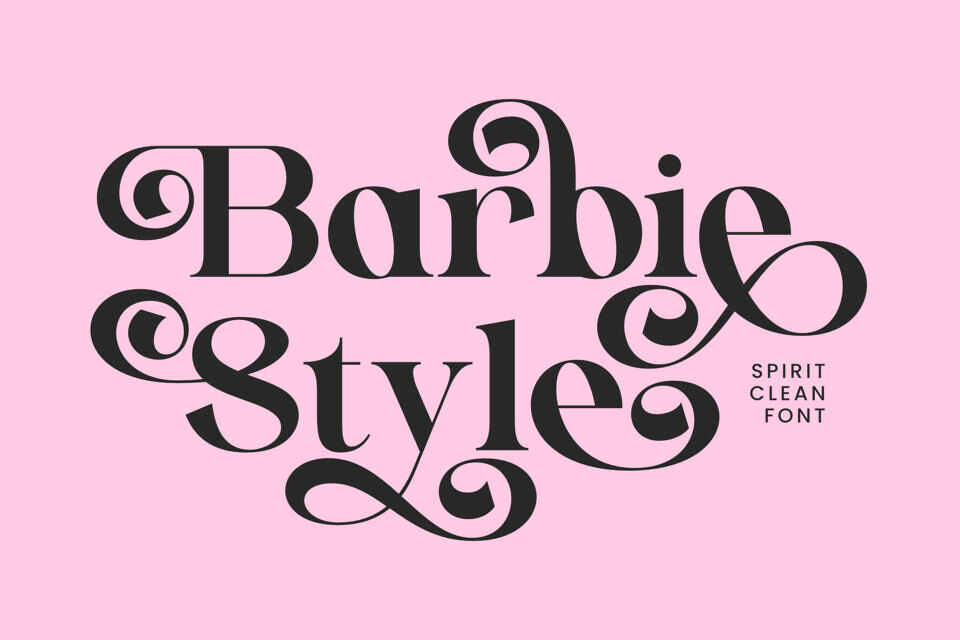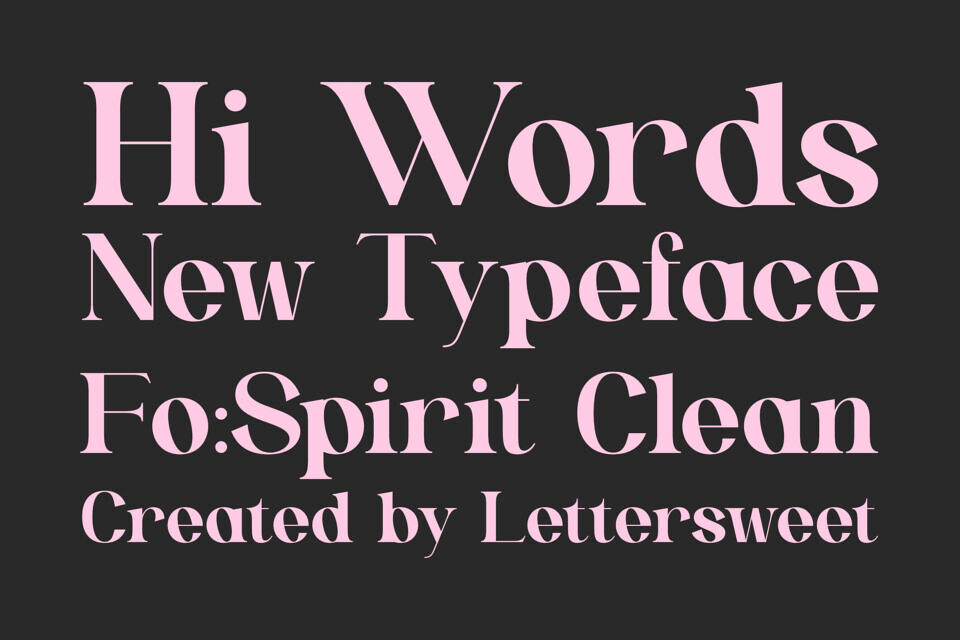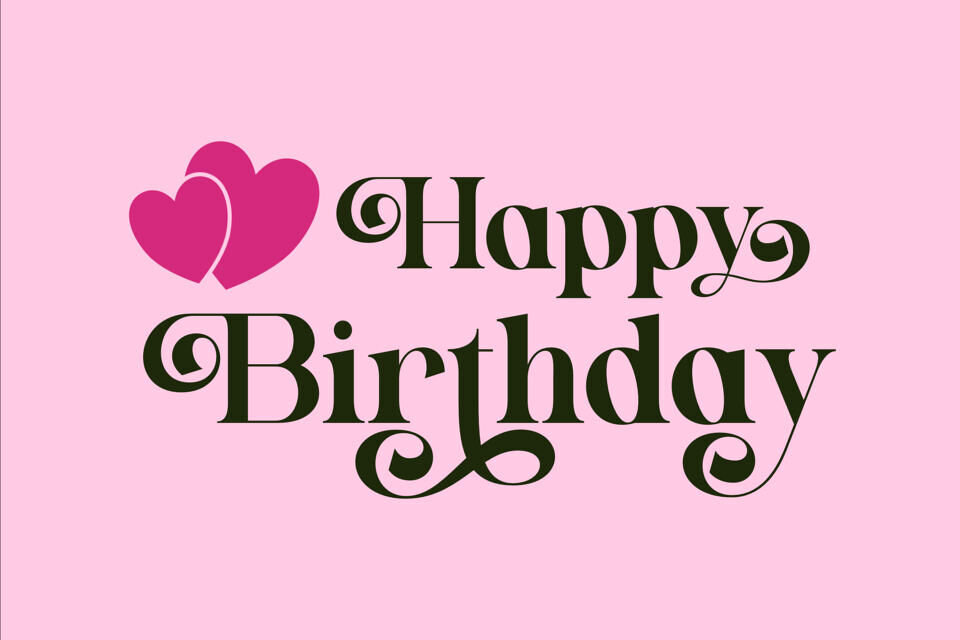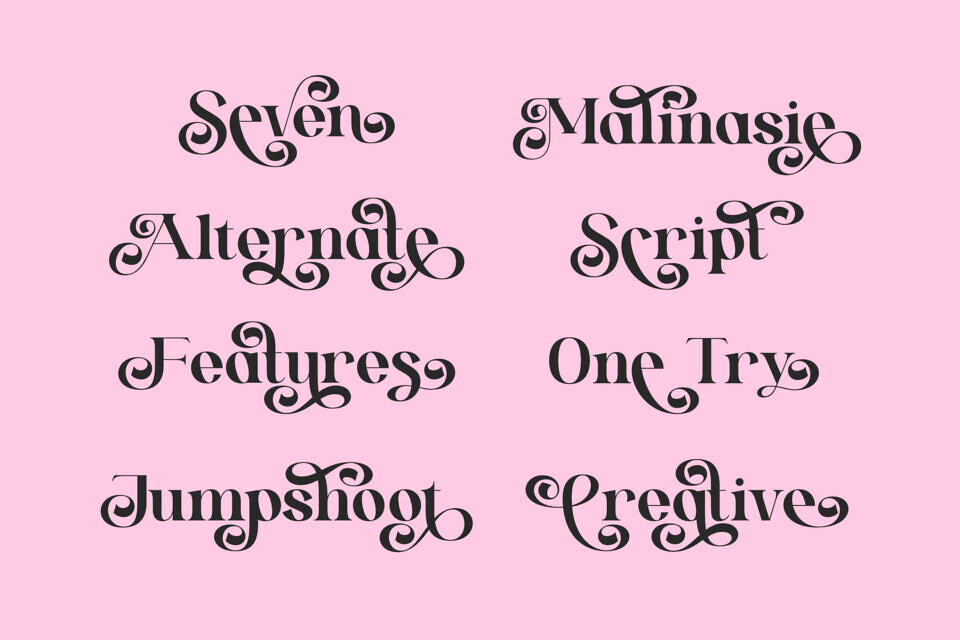
Spirit Clean Font
Meet Spirit Clean, a curly modern serif font that brings bold elegance and playful charm into perfect harmony. With its eye-catching swirls, confident curves, and refined serif details, this font is designed to make a bold statement in any creative project.
Whether you’re working on branding, editorial design, packaging, logos, or social media graphics, Spirit Clean adds a touch of sophistication with a fun, modern twist. Its smooth flourishes and balanced contrast give your text a luxurious yet approachable personality.
Perfect for fashion, beauty, lifestyle, or anything that needs a standout serif with flair – Spirit Clean is your go-to font for stylish, creative expression.